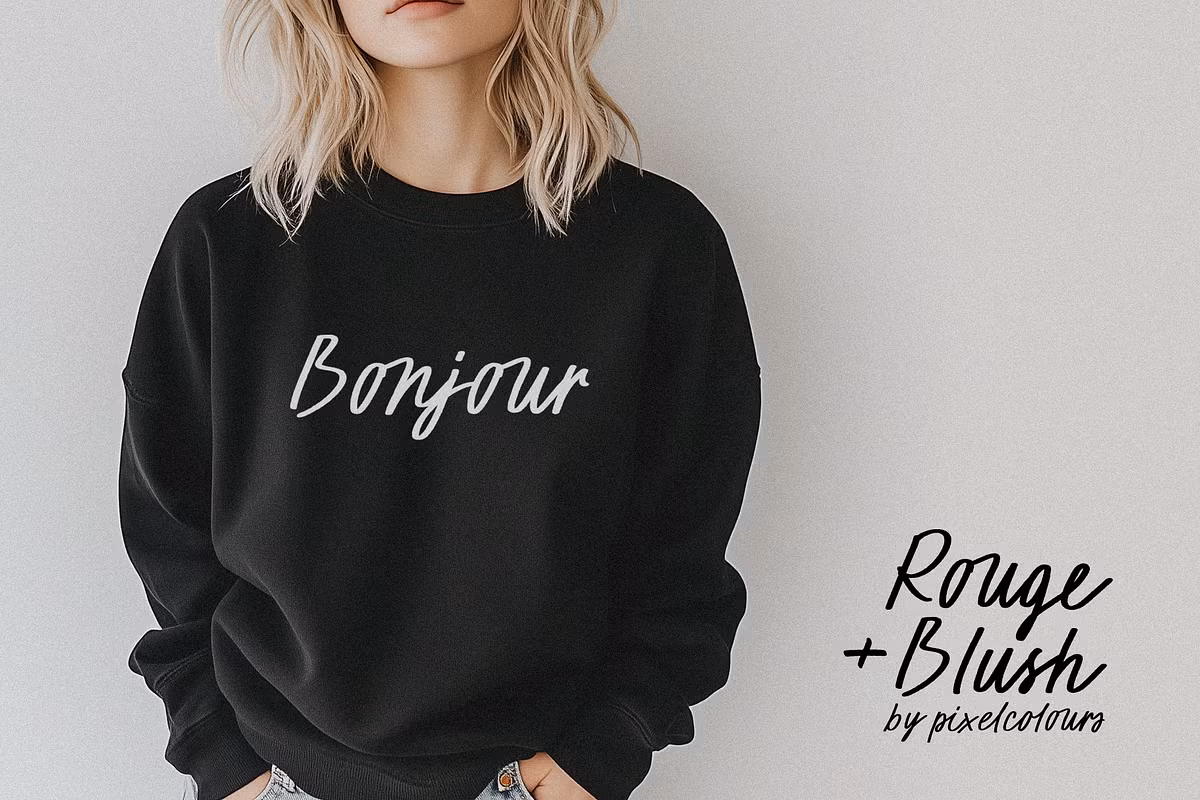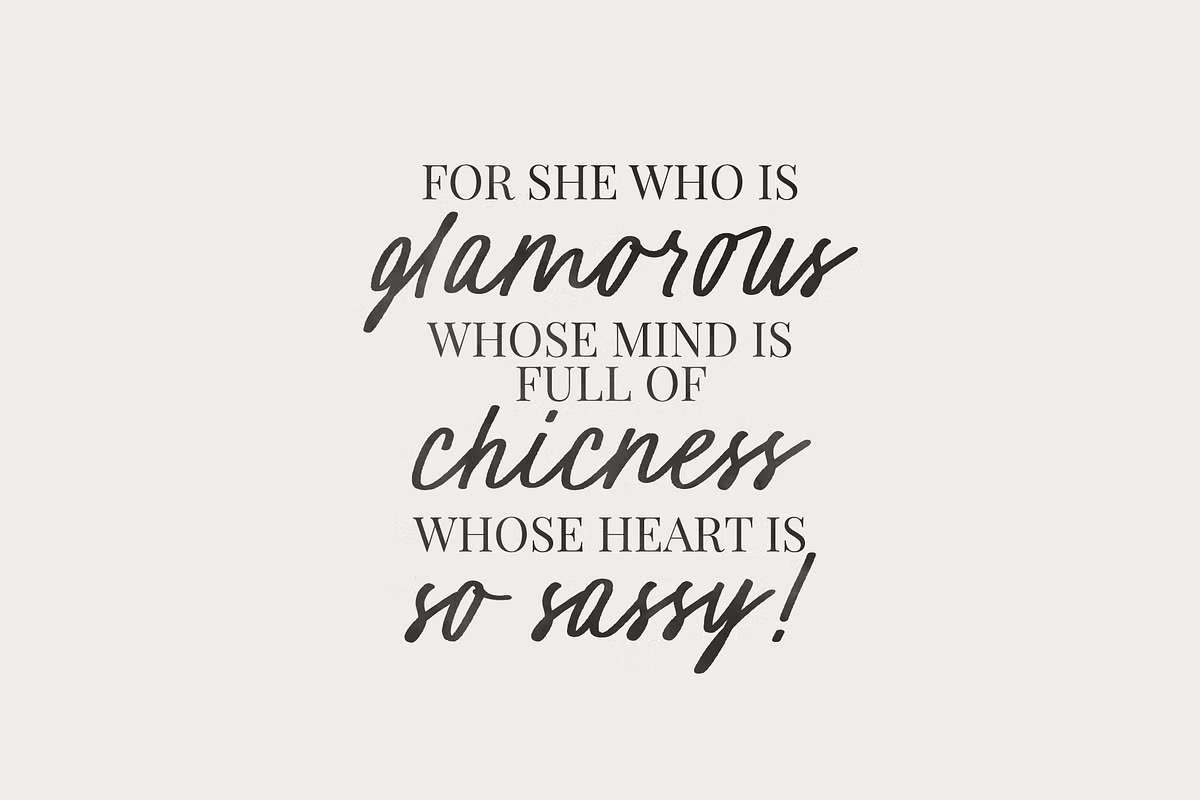
Introduction to Rouge and Blush
Rouge and Blush is a really nice handwritten font that has a lot of character. It looks like it was written by hand, which makes it perfect for adding some personality to your designs. You can use it for all sorts of things, like making your brand look more fun, creating beautiful wedding invitations, or making quotes that stand out. Because it’s a cursive font, it works really well for titles or for short pieces of writing, and it always looks clean and modern. It’s a great way to make your work look unique and stylish. Whether you’re using it to make a big statement or just to add a little something extra, Rouge and Blush is a great choice. It’s easy to read and it looks really nice, so you can’t go wrong with it.
Design Style of Rouge and Blush
The way Rouge and Blush looks is really playful and easy to like. Because the font is handwritten, it feels very natural and can make people feel all warm and fuzzy inside. A lot of thought went into making sure each letter connects nicely to the next one, and that’s thanks to some special features called OpenType. These features include some beautiful ligatures, which are like fancy connections between letters, making the whole thing easier to read and nicer to look at. When you see the letters all connected like that, it’s just really pretty. The people who made this font clearly wanted it to be special, and they did a great job. Overall, Rouge and Blush is a font that’s both fun and nice to look at, making it perfect for lots of different uses.
The unique texture of Rouge and Blush makes it stand out from other script fonts, which is great for designs that need to feel more personal. Because it has a handmade feel, the font has a lot of depth and personality, making it a good fit for projects that want to tap into people’s emotions. This kind of font can really help you connect with your audience on a deeper level, and that’s what makes it so special.
Character Sets and OpenType Features
Rouge and Blush has a wide range of characters, including capital and small letters, numbers, and punctuation marks. This makes it useful for many different things, like creating brands and making typographic art. It also has some special features that make it more functional, like ligatures that help letters flow smoothly into each other. These ligatures don’t just make your text look nicer, they also help keep your designs looking consistent and professional. With all these features, Rouge and Blush is a great choice for designers who want to create beautiful and cohesive designs. Whether you’re working on a brand identity or a piece of typographic art, this font has everything you need to make your project look amazing.
The font is really useful because it works with many languages, so more people can use it. This is especially good for designers who work on projects with people from other countries or who want to appeal to a wide range of clients. It helps them connect with people who speak different languages, making their work more accessible and effective.
Use Cases for Rouge and Blush
Rouge and Blush is really flexible and can be used in lots of different design situations. Let’s take a look at some of the most popular ways to use it.
- Wedding Invitations: The charming handwritten style of Rouge and Blush makes it an ideal choice for modern wedding invitations, adding a personal touch to the special day.
- Logo Design: If you’re opening a boutique or a trendy café, you need a font that’s going to give your business a unique identity.
- Quotes and Typography Art: Use Rouge and Blush for motivational quotes or artistic typography displays. The font’s organic flow enhances the message while maintaining visual interest.
- Greeting Cards and Invitations: Perfect for crafting heartfelt greeting cards, the font adds a layer of charm and personality that recipients will appreciate.
- Social Media Graphics: In the digital age, social media graphics require impactful designs. Rouge and Blush can help you create eye-catching posts that resonate with your audience.
- DIY Crafts and Stationery: From custom apparel to unique stationery, the font can elevate DIY projects, making them look professionally designed.
Pairing Suggestions for Rouge and Blush
When designing, pairing fonts can significantly enhance the overall aesthetic of your project. Here are some recommendations for pairing Rouge and Blush:
- Sans Serif Fonts: Combine Rouge and Blush with a clean sans serif typeface like Montserrat or Open Sans for a modern look.
- Traditional Serif Fonts: Combining Rouge and Blush with a traditional serif font, such as Playfair Display, can add a touch of sophistication.
- Relaxed Pairings: Consider pairing Rouge and Blush with another handwritten font for a balanced look.
This combination is particularly well-suited for wedding invitations and high-end branding, where a sense of luxury and refinement is desired. The classic feel of the serif font perfectly complements the romantic nuances of Rouge and Blush, creating a visually stunning and elegant visual identity.
Whether you’re making something sweet and sentimental or something stylish and modern, Rouge and Blush can help you give it that extra something that makes it stand out. It’s a great tool for designers who want to add some charm and personality to their work.